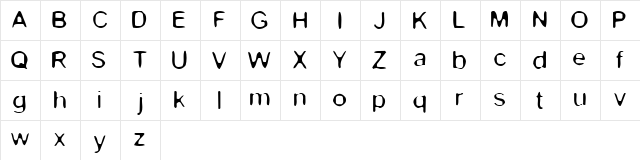
Kevin Normal
Design Context for Kevin Typeface
Kevin takes a measured approach to typography — its balanced proportions and neutral character make it a reliable workhorse for both digital and print work.